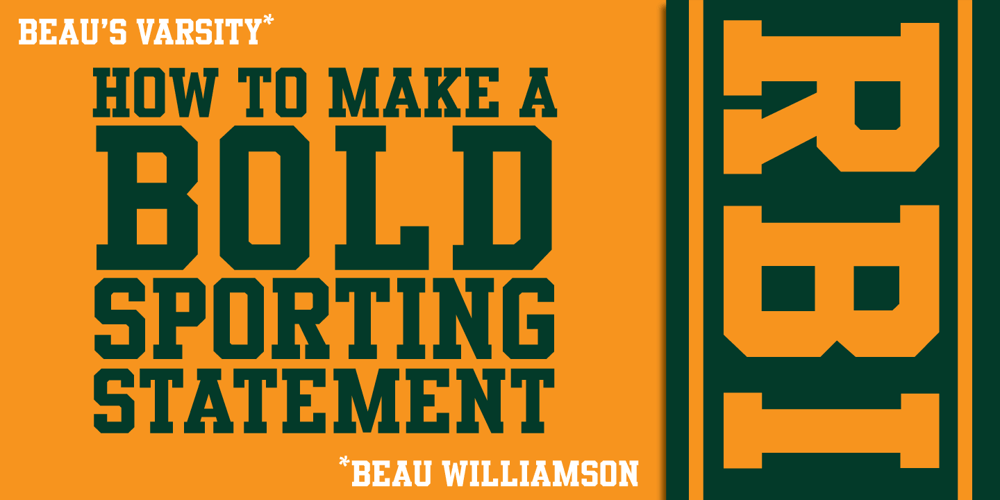
Beau’s Varsity Font Family was designed by Beau Williamson and published by Beau Williamson. Beau’s Varsity contains 1 styles and family package options. I designed this font a few years ago to address a direct problem. My work demanded small paragraphs of text to be screenprinted in a varsity font style. The house varsity was rather uneven and created small blobs of ink at sharp angles when printed. I designed Beau’s Varsity to address both of these problems. The new font eliminated the blobbing, and I like to think my original design is a step up in evenness from the other options.